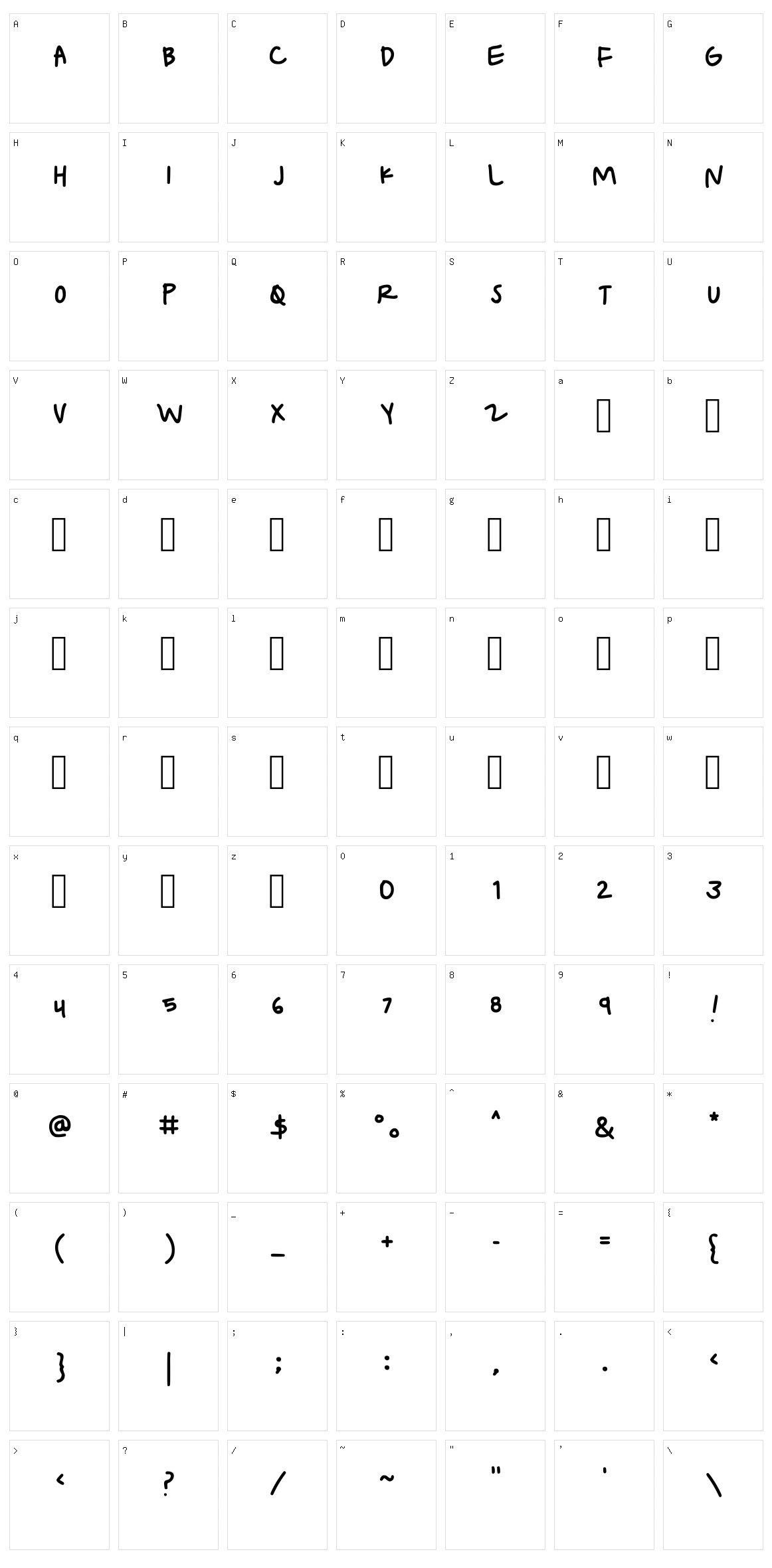
The free font Handwritten Doodles is carefully designed by Ana Valeria P?rez Lagunas, showcasing a thoughtful balance of creativity and usability and falls under the Script font style. When you download the ZIP file, it contains only 8.58 KB of font files, making it lightweight and quick to download. Please review the license details below to understand permitted usage and distribution rights. If license information is not available, we recommend using this font for personal projects only or contacting the author directly for commercial usage permissions.